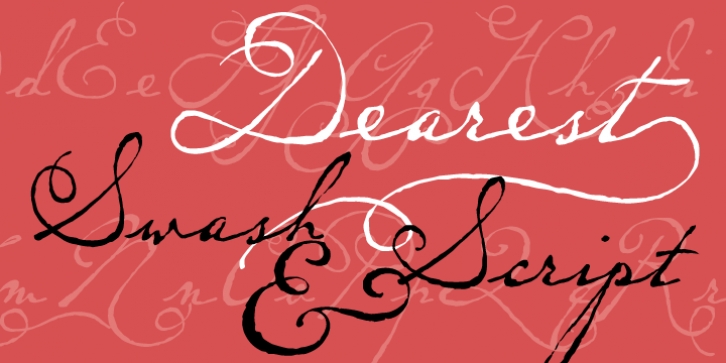
P22 Dearest Pro is a historical and script font family. This typeface has four styles and was published by International House of Fonts.
Dearest is a distinct flowing script based on handwritten characters found in a 19th Century German book chronicling a history of the Middle Ages Originally released in 2001 as a set containing two styles, Script and Swash, Dearest is now expanded in 2014 as a pro font with several hundred new characters including support for Central European, Cyrillic and Greek languages. Other Opentype features include ligatures, fractions and figures, Roman numerals, alternate letterforms and more swashes to expand the possibilities of this designer-friendly font.
In addition to the Dearest Pro font, a new companion font has been added- P22 Dearest Alternates. The characters contained in this font are part of the pro font, but are also designed to be used with Dearest Script and Dearest Swash and is intended for those who have applications that do not support Opentype features.
· P22 Dearest Pro
· P22 Dearest Script
· P22 Dearest Swash
· P22 Dearest Alternates